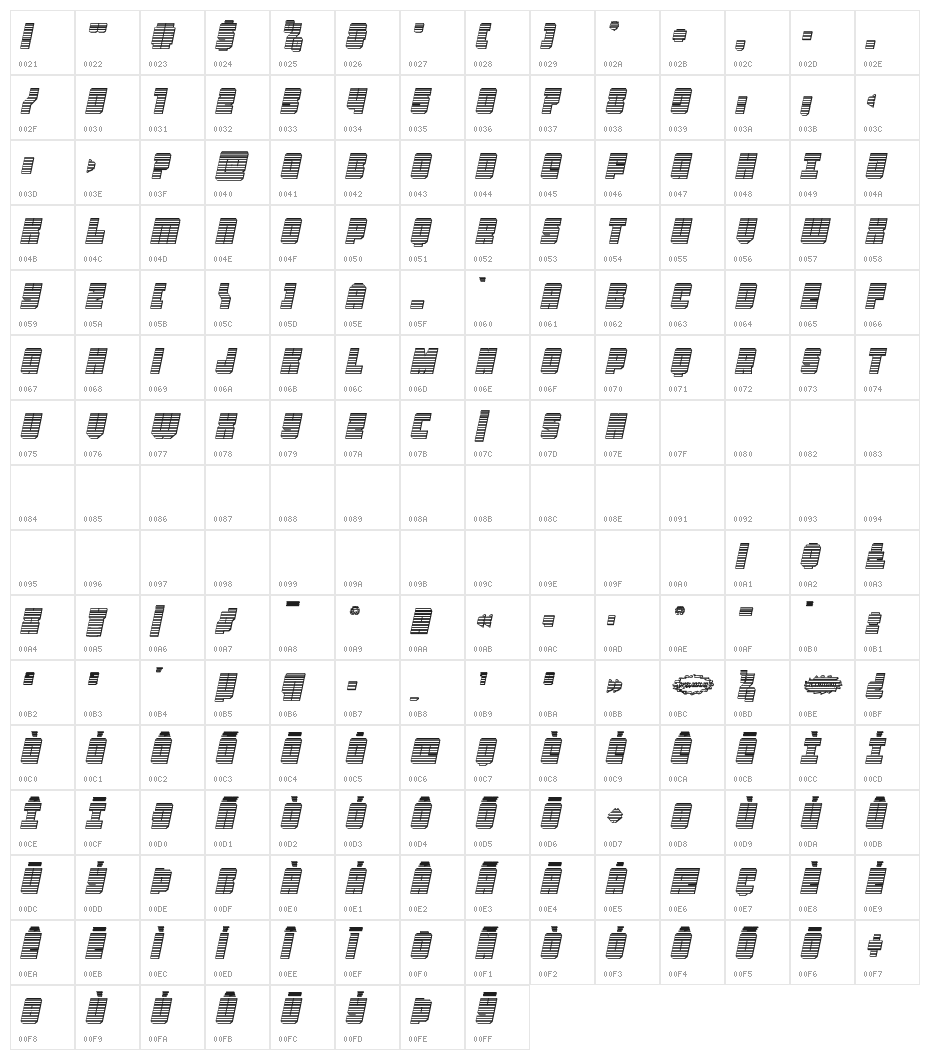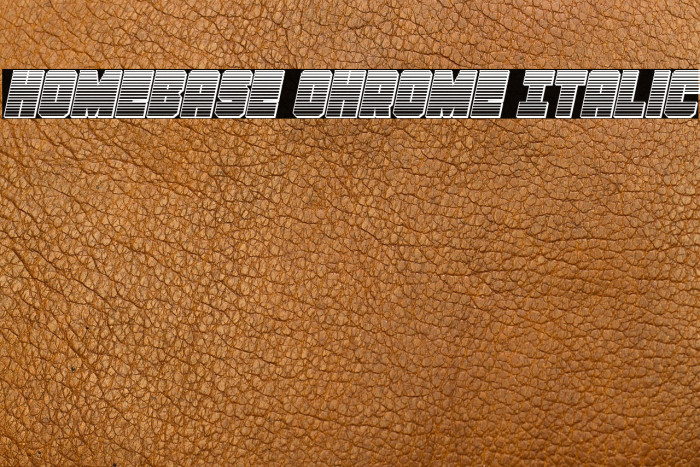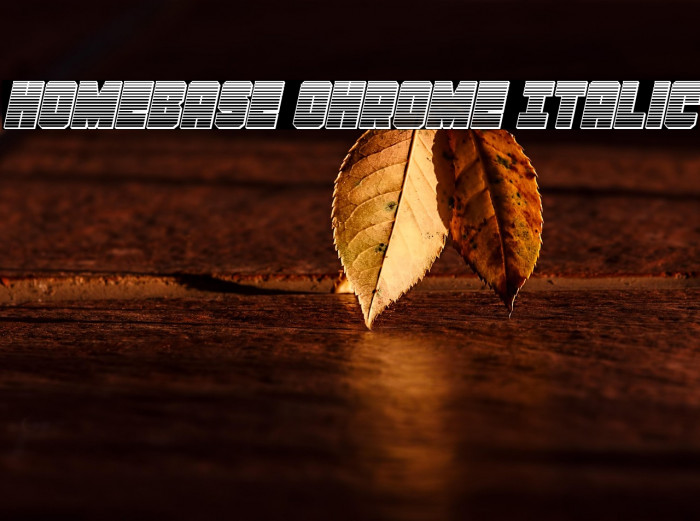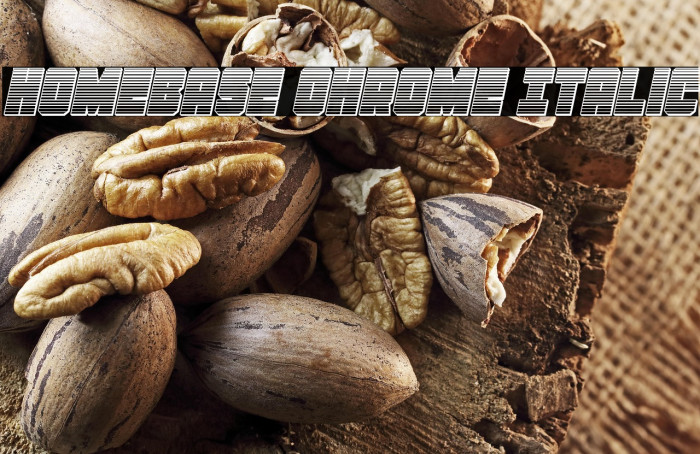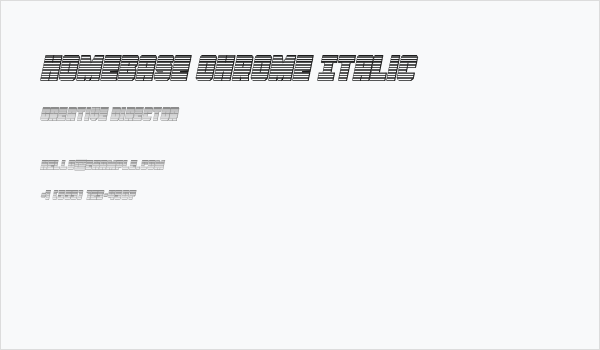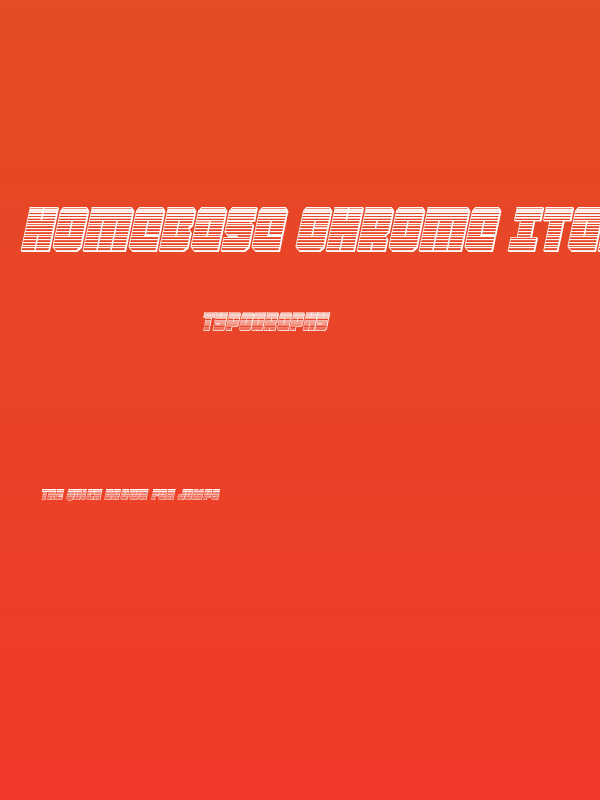
Homebase Chrome Italic Font
Homebase Chrome Italic Description
This font features a bold, three-dimensional design with a striped pattern that gives it a futuristic and dynamic appearance. The characters are uppercase and have a consistent width, creating a uniform look. The italic style adds a sense of motion and speed, making it ideal for projects that require a modern and energetic feel. The font's unique design is eye-catching and suitable for creative and innovative applications. The spacing between characters is tight, enhancing the compact and cohesive look of the text. The high contrast in stroke thickness further emphasizes the boldness and clarity of each character.
| Proposed Projects | Ideal for use in technology branding, sports team logos, futuristic event posters, and video game titles. |